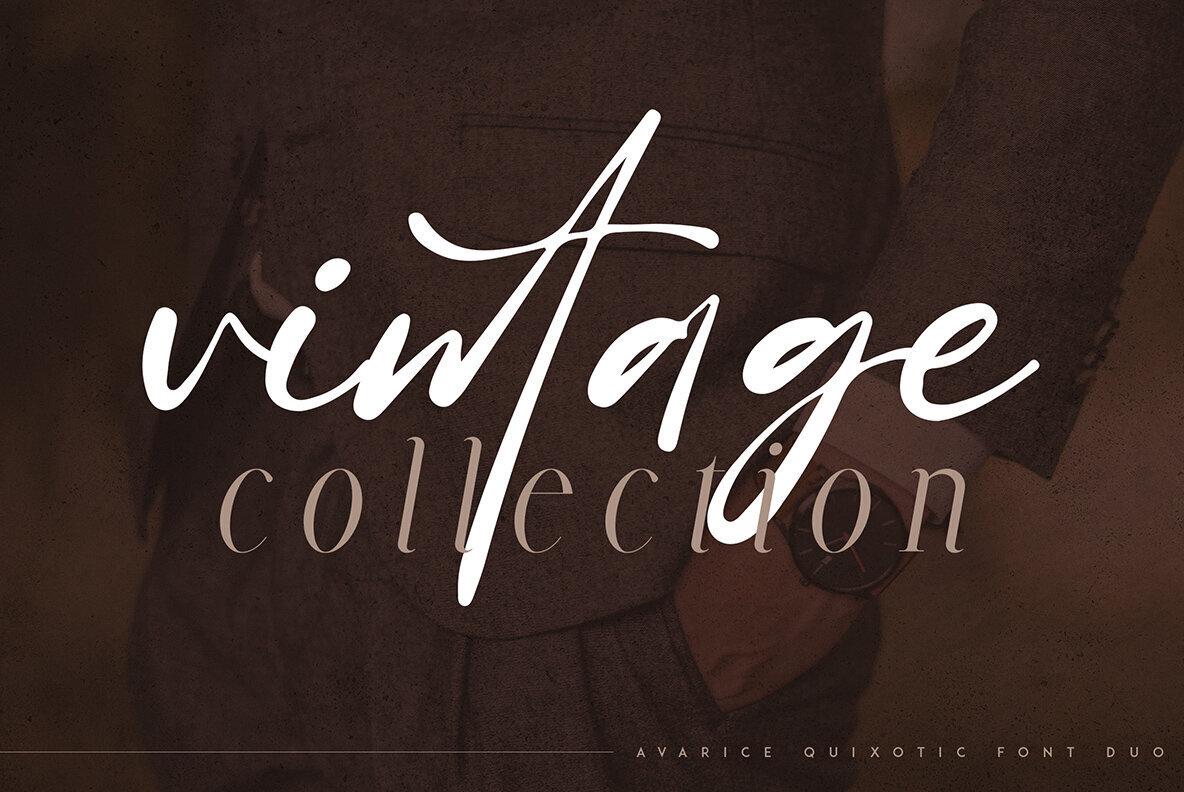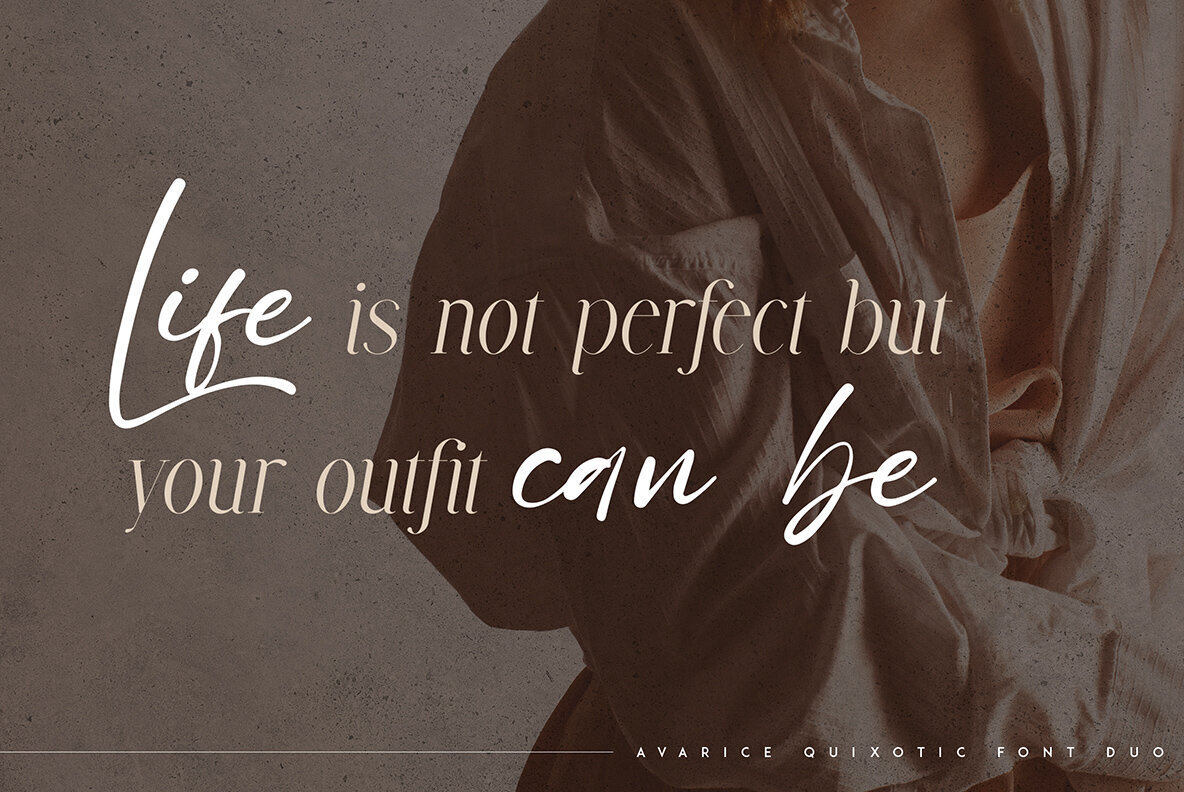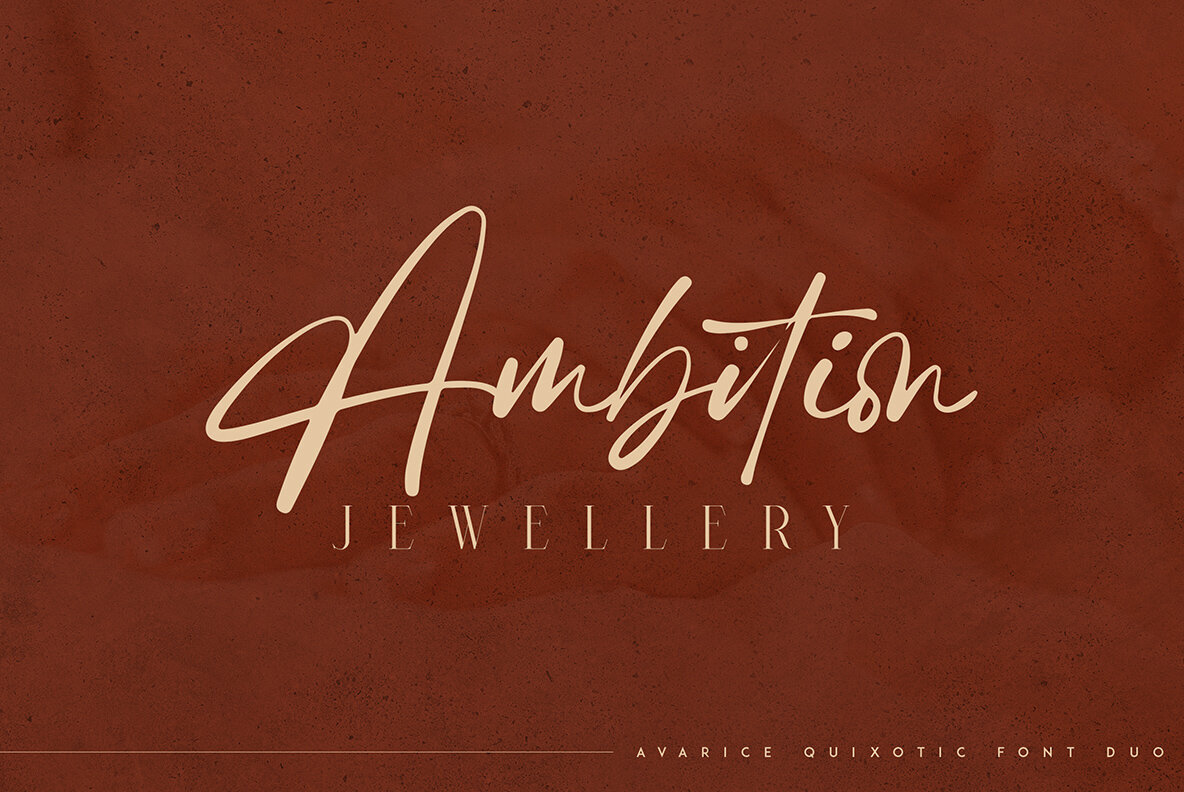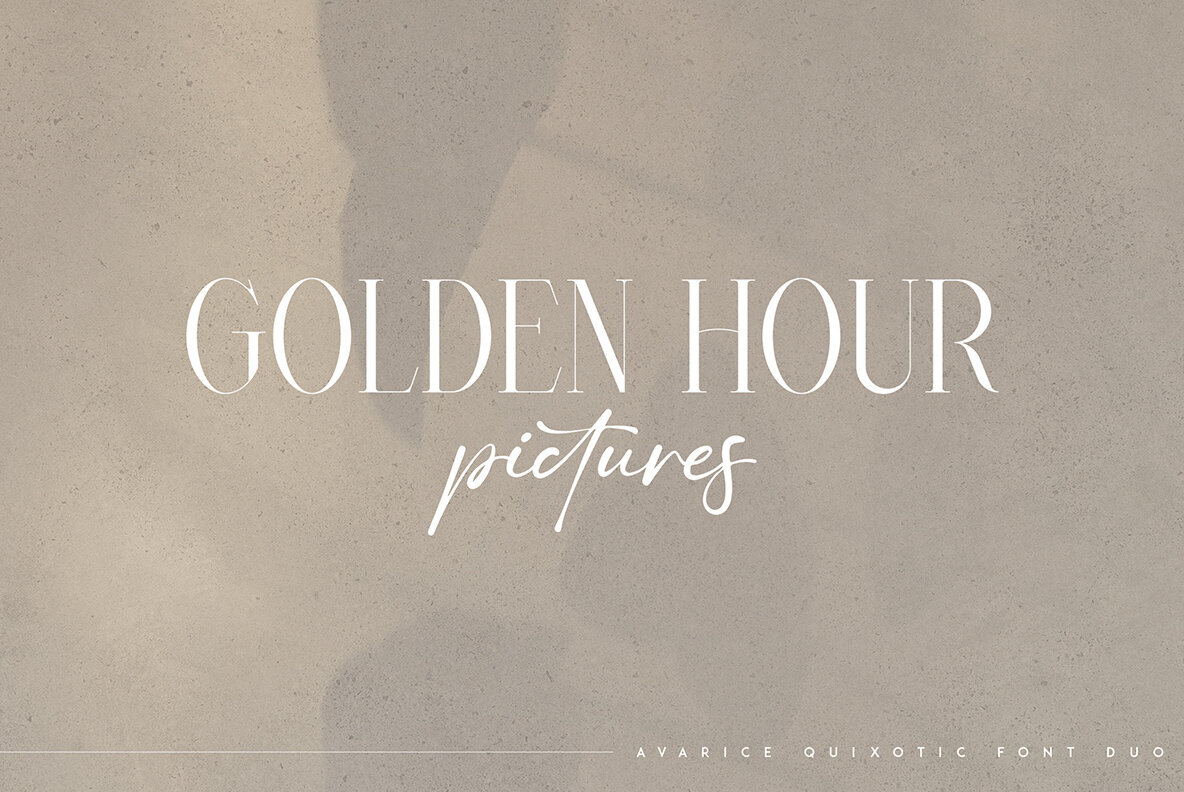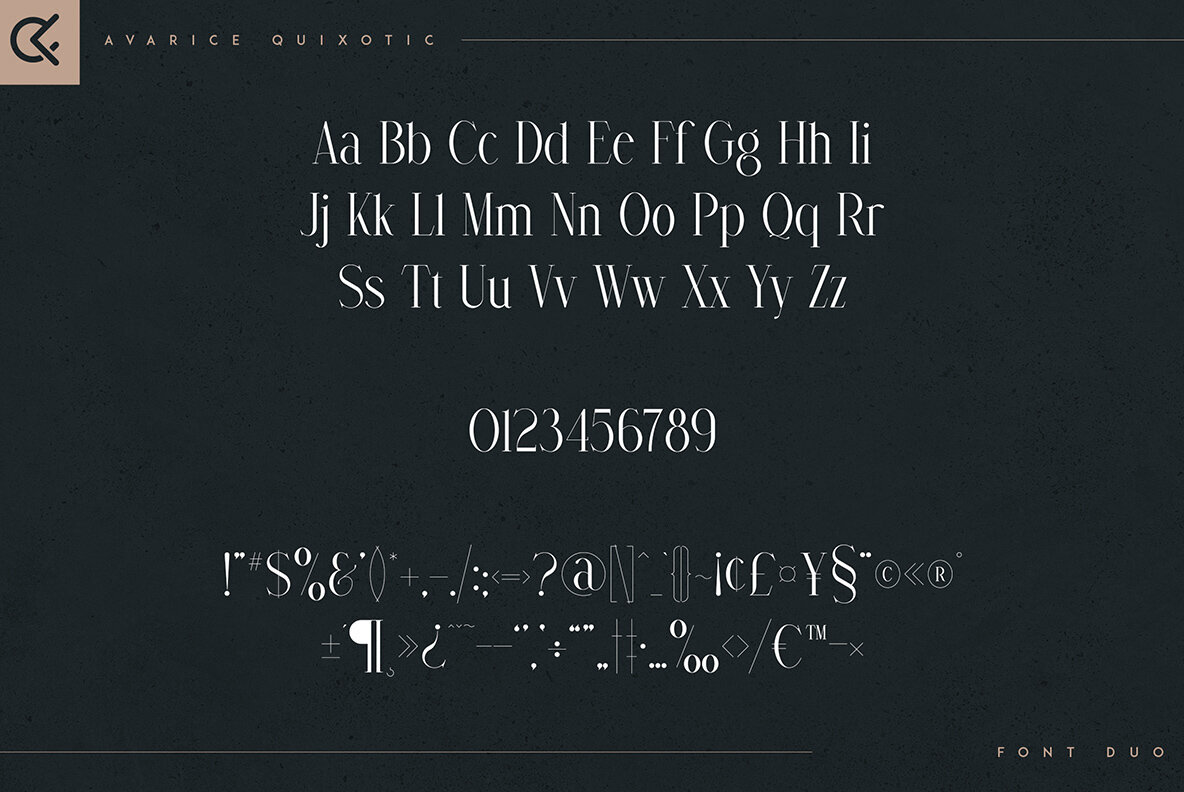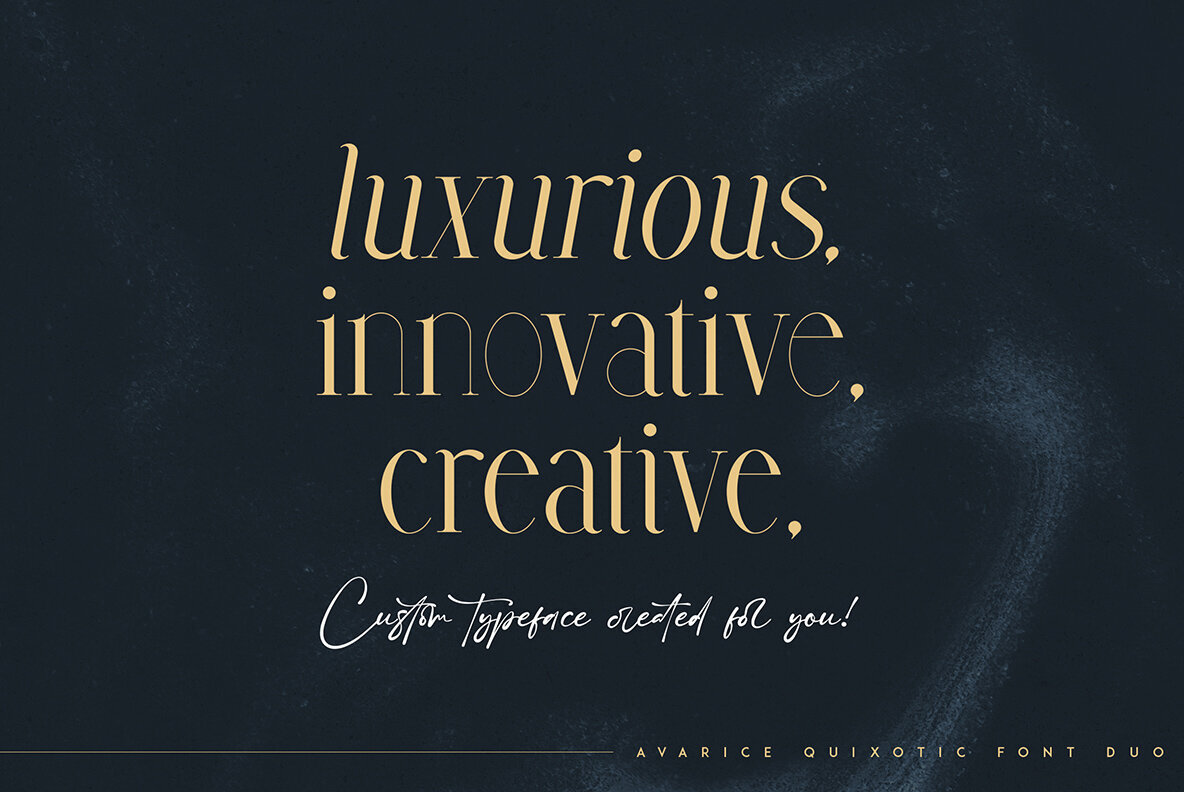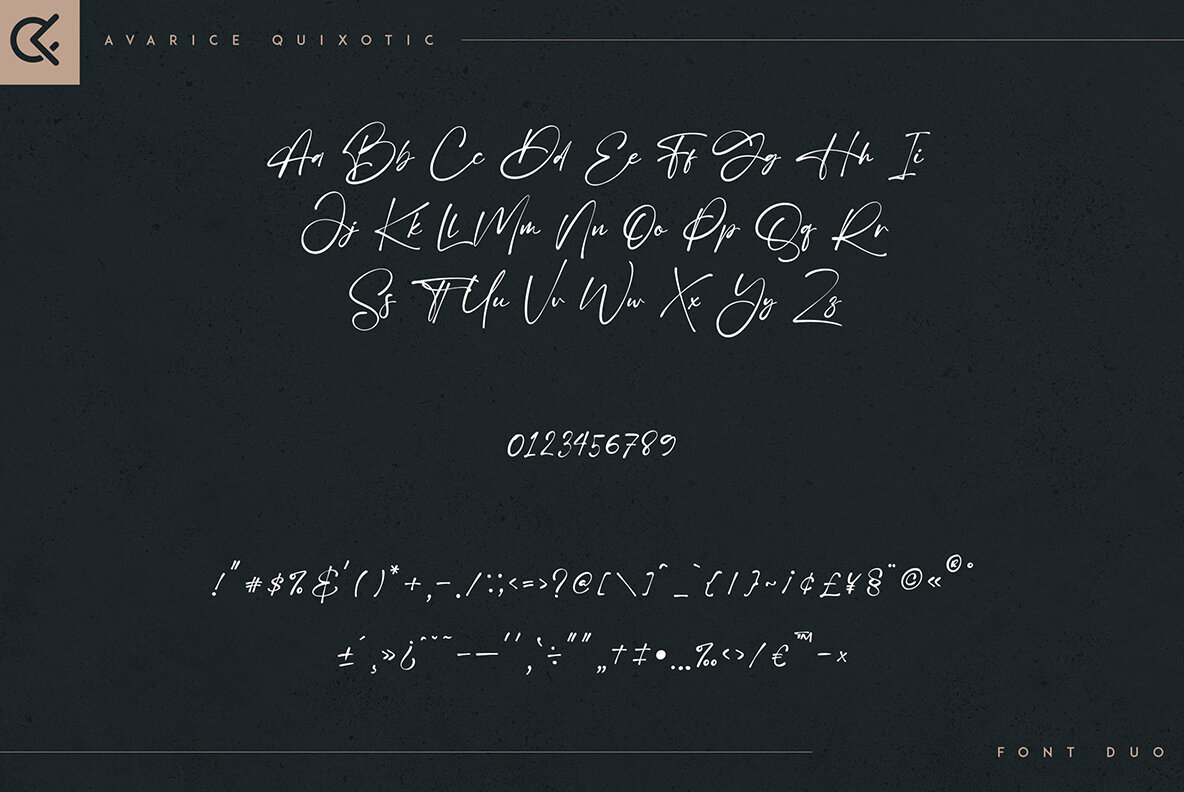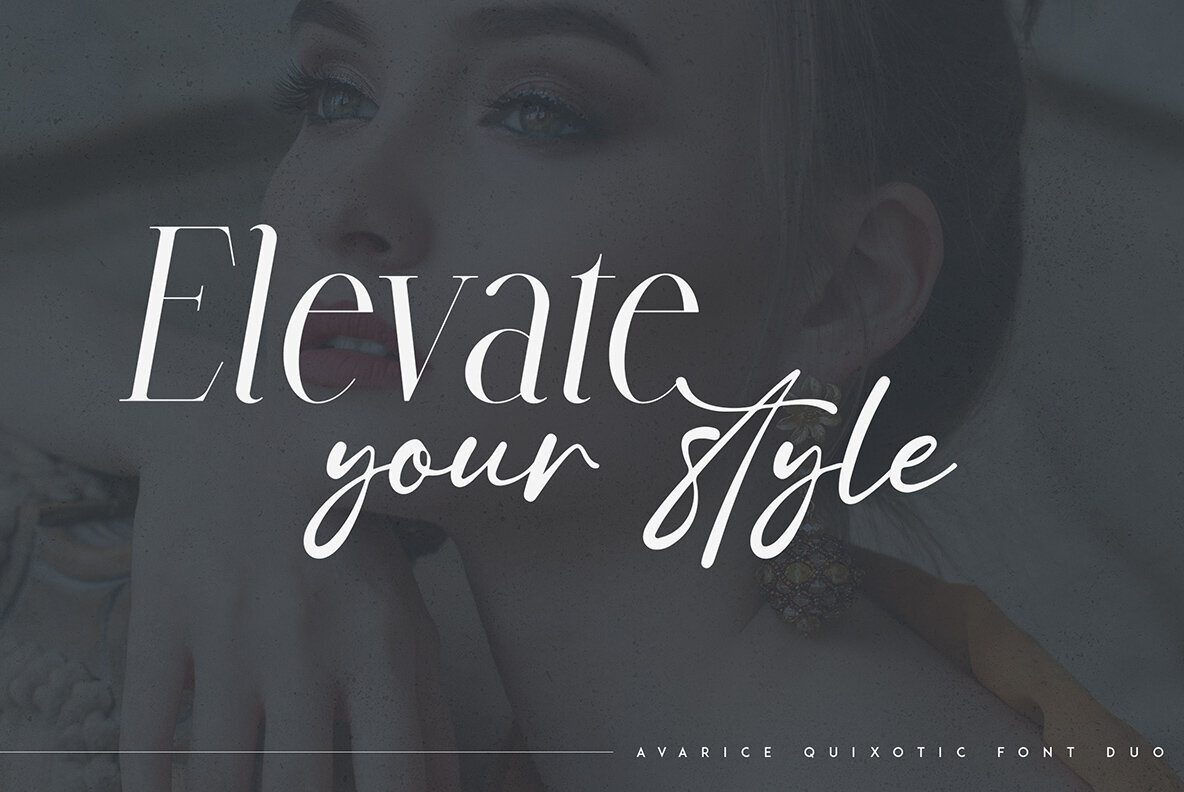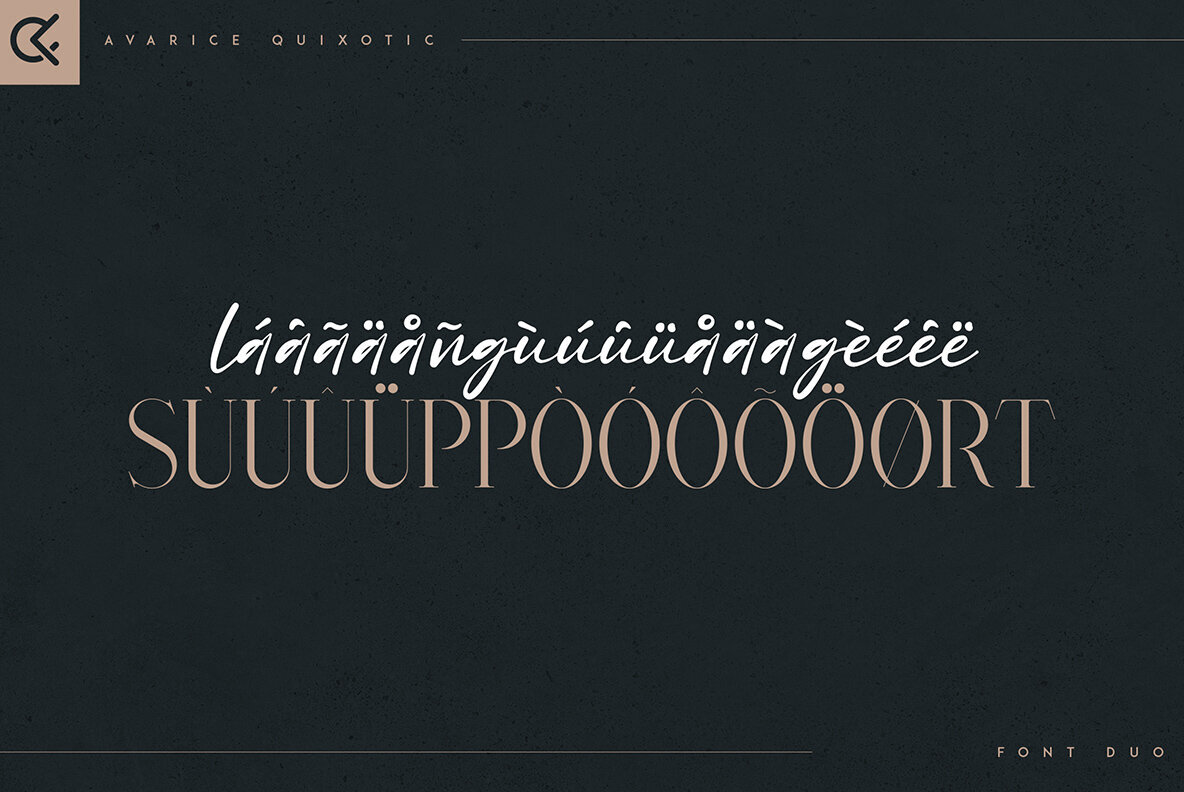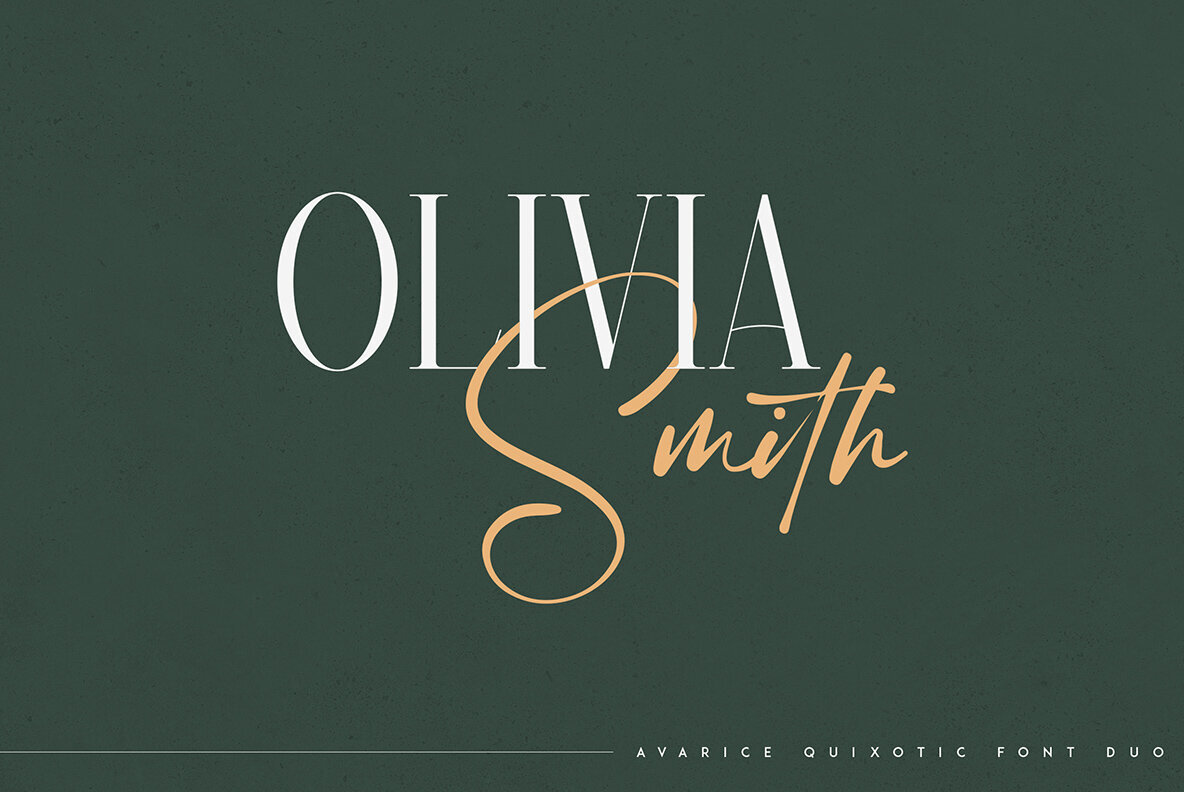
Avarice and Quixotic Font
Avarice & Quixotic is an elegant and organic typeface duo with multilingual support, offering versatility in both large and small sizes. Ideal for branding projects, home-ware designs, product packaging, and magazine headers, this duo also serves as a stylish text overlay for any background image. Features include uppercase, lowercase, numerals, punctuation, symbols, regular and italic styles, script, and multilingual support. No special software is required to type out the standard characters of the typeface, making it Canva-friendly as well. Discover the charm and sophistication of Avarice & Quixotic for your next design project.